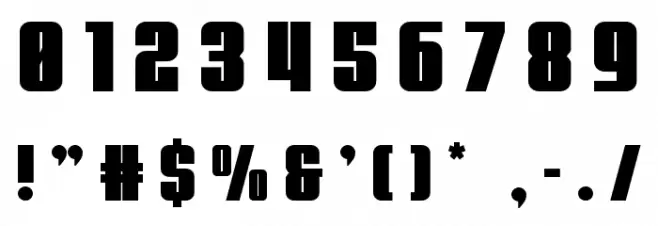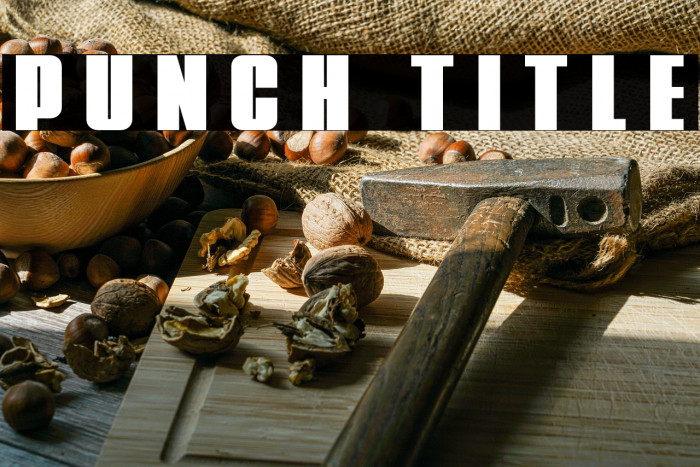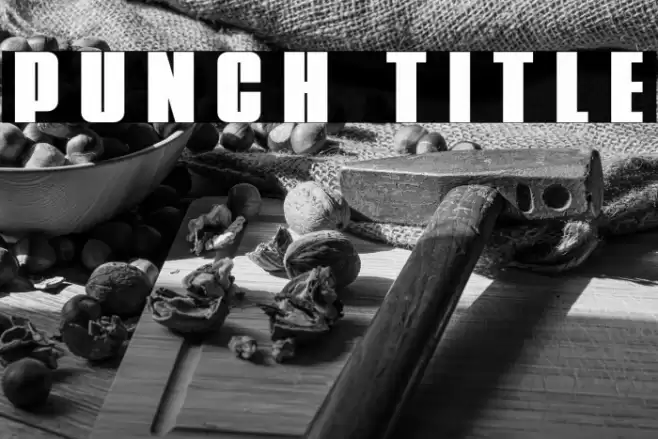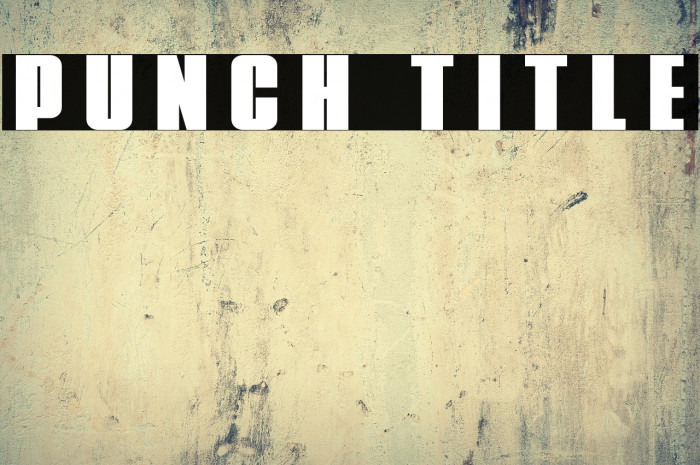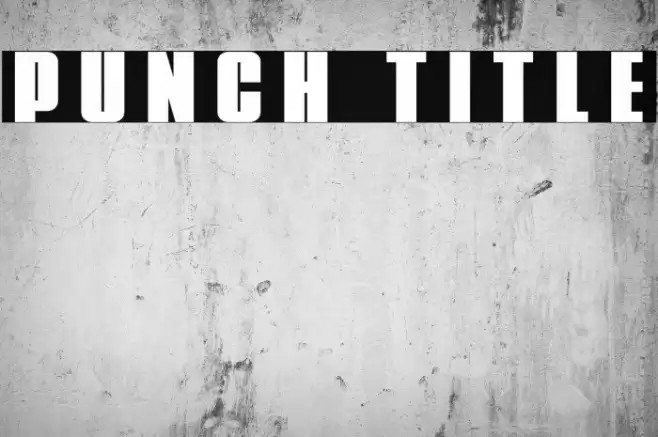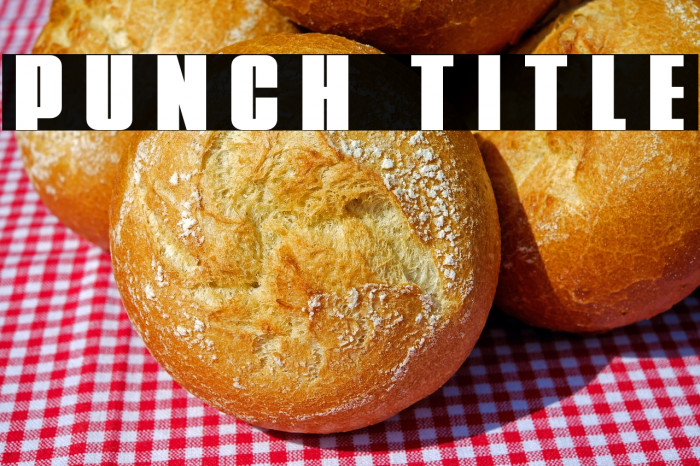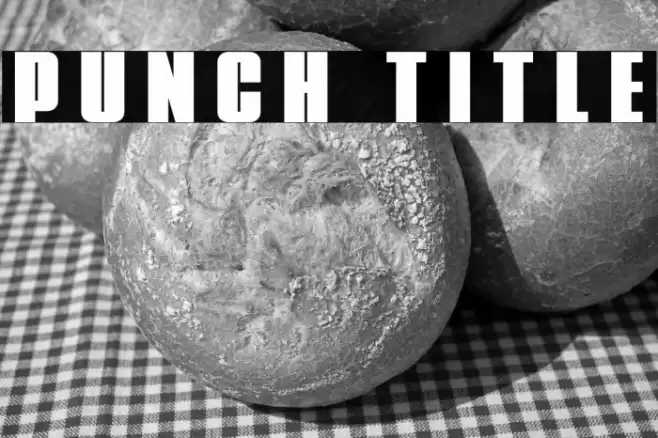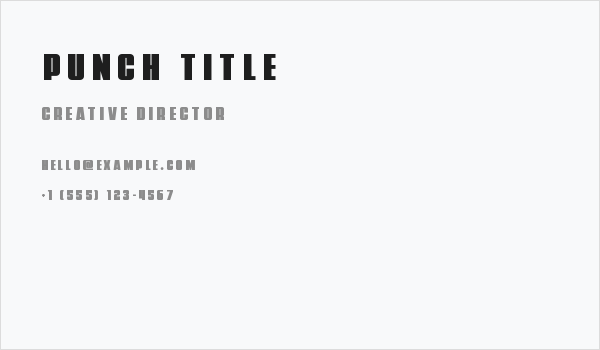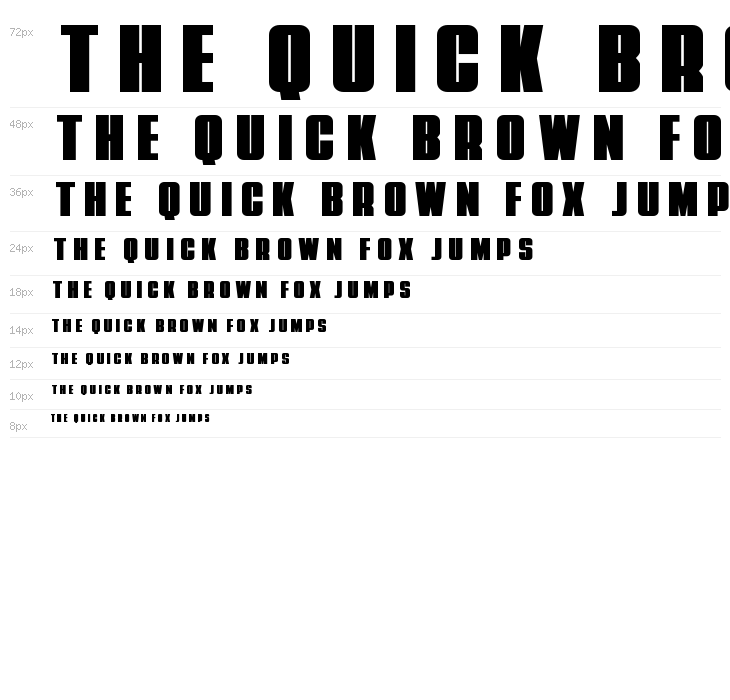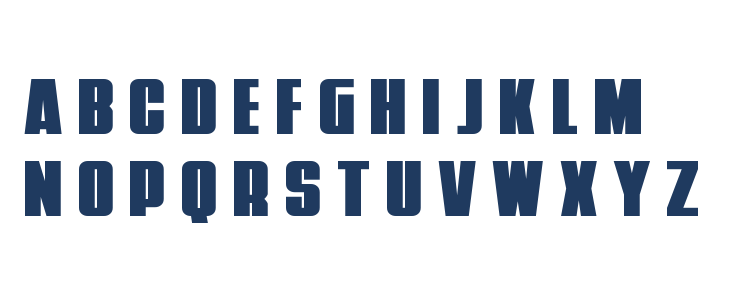
Punch Title Font
Punch Title Description
This font features bold, blocky characters with a strong presence, ideal for making impactful statements. The uppercase letters are uniform in height, with a consistent width that gives a sense of stability and strength. The numbers and special characters maintain this bold style, ensuring a cohesive look across all text. The font's design is straightforward, with minimal embellishments, focusing on clarity and readability. It is well-suited for attention-grabbing headlines and titles, where a commanding visual is required.
| Proposed Projects | Ideal for posters, banners, and any project requiring a strong visual impact. |